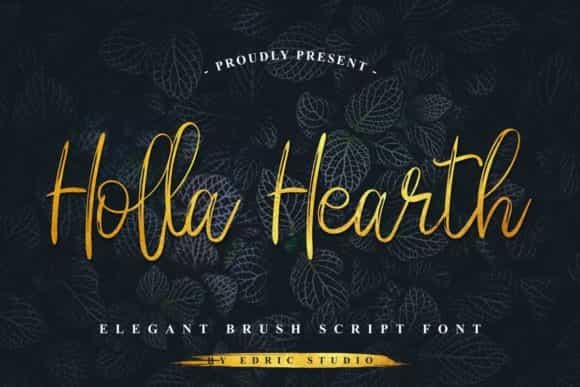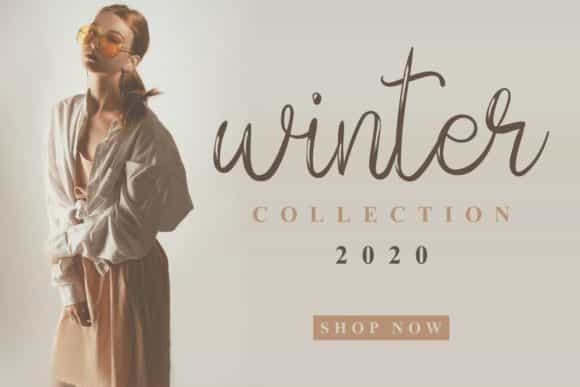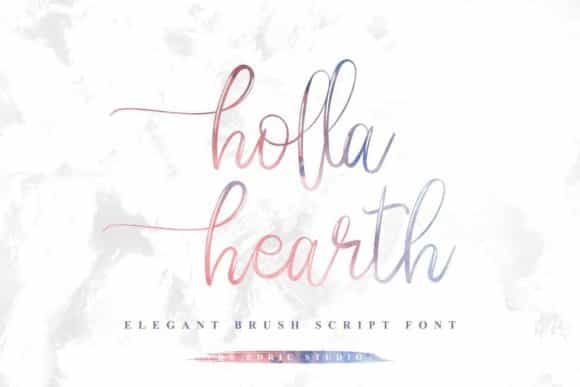
Now, let me introduce to you the Holla Hearth Font which is a very elegant hand lettering brush style font. This font is perfect for your design project that has the idea of fun, girly, romantic and elegant. It can also be used for the design of a logotype, header website, wedding logo, romantic design and turning some lettering into a quote or t-shirt.